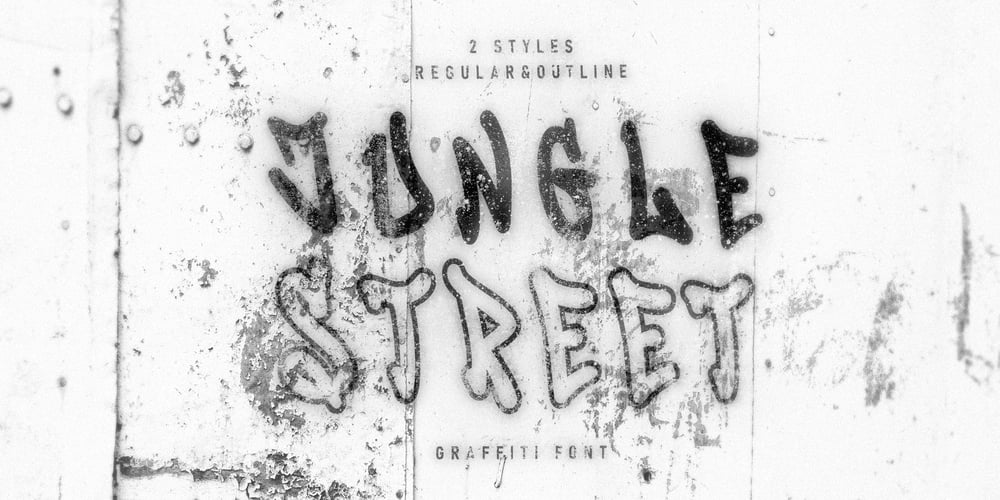
Jungle street
Jungle street font
Jungle street Font Family was designed by Fidan Aslanova and published by Fidan Fonts. Jungle street contains 2 styles and family package options. Jungle Street is an uppercase decorative font inspired by street art tag in big city wall. It’s works perfectly for headlines, logos, posters, packaging, T-shirts, postcards and many more.Latin-based Language Support.A summary of what’s included:Jungle street Regular font (otf)Jungle street Outline font (otf)Happy creating!